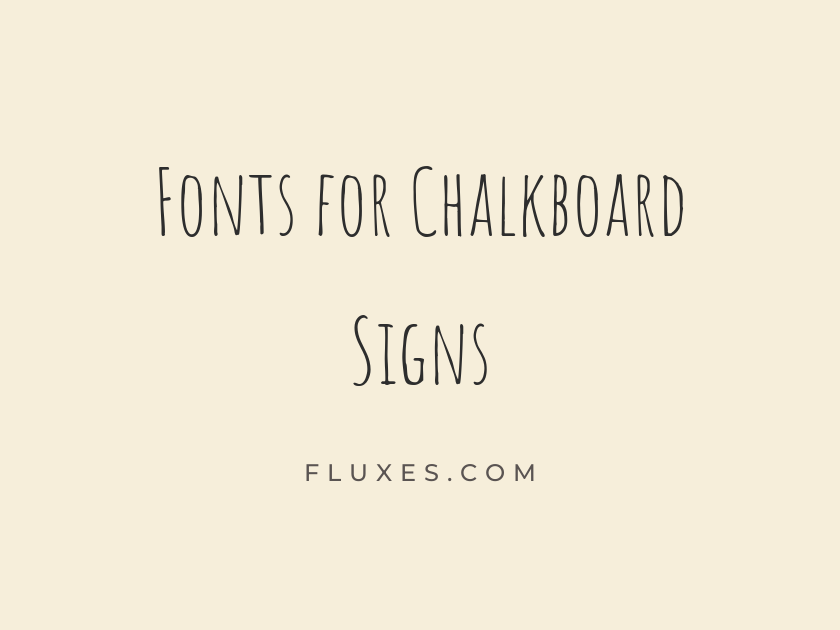
70 Best Fonts for Chalkboard Signs
Chalkboard signage lives on personality. Whether it is a café specials board, a farmers market price list, a wedding welcome sign, or a bakery window, the lettering needs to look like it was written by hand, in a hurry, with real affection for the product. Google Fonts has an enormous range of free chalk, marker, and hand-lettered styles that mimic this look convincingly on screen and in print, from wobbly chalk scrawls to bold marker headlines to elegant script signage for special events.
The fonts below cover the full range of chalkboard sign lettering: casual handwriting, thick chalk and marker textures, bold poster display faces for pricing and headlines, and a few polished scripts for more formal chalkboard signage at weddings and events.
Amatic SC is the unofficial mascot of chalkboard menu design online. Its tall, narrow, hand-drawn caps look exactly like the letters a barista scratches onto a board in thirty seconds flat, and its condensed width lets long specials lists fit into tight sign space.
It reads best at larger display sizes; keep body copy in something sturdier and reserve Amatic SC for headlines and short menu lines.
Thick, confident, and unmistakably felt-tip, Permanent Marker is the fastest way to make a digital sign look like it was drawn with an actual marker on an actual board. It works well for sale signs, sandwich boards, and social posts advertising a menu special.
Caveat has an easy, natural handwriting rhythm that avoids the stiffness of more geometric script fonts. It suits friendly, conversational sign copy, like a note scrawled to regulars rather than a formal announcement.
Caveat Brush
The brush-tipped sibling of Caveat, this one carries real weight and texture, closer to soft chalk dust than pen ink. It gives headlines a satisfying heaviness without losing the loose, hand-drawn feel.
Kalam has a rounder, slightly bouncier hand than most script alternatives, which gives it a warm, approachable tone well suited to café and bakery signage. Its multiple weights make it flexible for both headlines and smaller sign details.
Modeled on architectural hand-lettering, this face has a slightly more structured, upright feel than a loose chalk scrawl. It suits signs that want a handmade look without tipping into total casualness, like a farm stand price board.
A bubbly, rounded handwriting style that reads as cheerful and youthful. It fits kids’ menus, ice cream shops, and playful event signage nicely, though it can blur at very small sizes.
Patrick Hand strikes a nice balance between legibility and personality; the letterforms are casual but consistent enough to hold up in longer sign copy, like full menu descriptions rather than just headlines.
Light, quick, and slightly slanted, this one looks like a note dashed off with a fine chalk marker. It works nicely for smaller signage details, table cards, or welcome messages at a shop entrance.
Homemade Apple mimics a rounder ballpoint scrawl, thicker and more deliberate than most script alternatives here. It suits nostalgic, homey branding, bakeries especially, where the sign should feel personally written by the owner.
Reenie Beanie
A loose, slightly messy cursive that leans casual rather than elegant. Best used sparingly, for short accent lines rather than full paragraphs of sign copy.
Rock Salt has an intentionally rough, uneven texture that reads almost like it was scratched into a surface rather than written. It pairs well with rustic, DIY-leaning branding, farm markets, craft fairs, that kind of setting.
A tidy, rounded handwriting style with a slightly childlike charm. It suits friendly instructional signage, like ordering directions or small print notes on a menu board.
Covered By Your Grace
Softer and slightly more delicate than most chalk-style scripts, this face suits gentler sign copy, brunch menus, wellness studios, plant shops, where a heavier marker font would feel too loud.
Coming Soon
A relaxed, unhurried handwriting style with plenty of personality but good legibility at small sizes too, useful for signage that mixes headline and fine print.
Neucha
Neucha has a rounded, informal quality reminiscent of handwriting on a recipe card. It reads warmly at body text sizes, which makes it a good choice for full chalkboard menu descriptions rather than just single headline words.
For menus with lots of small print, lean on the more legible handwriting fonts like Patrick Hand, Kalam, or Neucha rather than the loosest scrawls, and save the wilder marker fonts for headlines only.
With this many free chalkboard-style options on Google Fonts, there is rarely a reason to reach for a paid alternative. Testing a headline font against a couple of supporting scripts, right in a live preview, is the fastest way to find the combination that suits a particular café, event, or storefront.